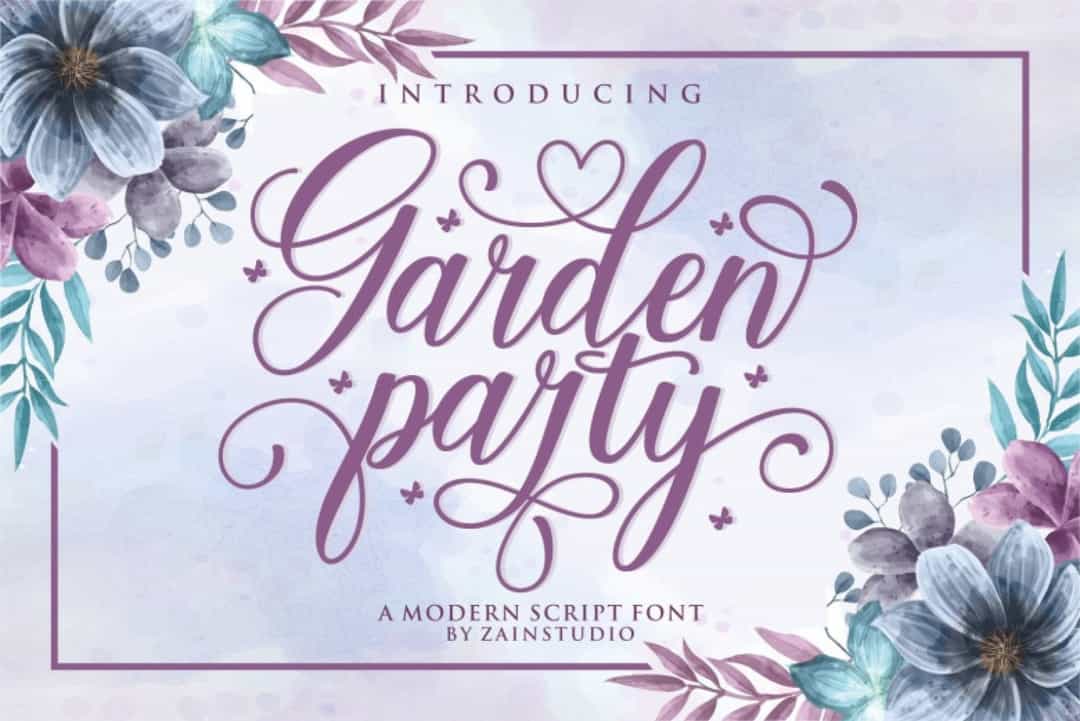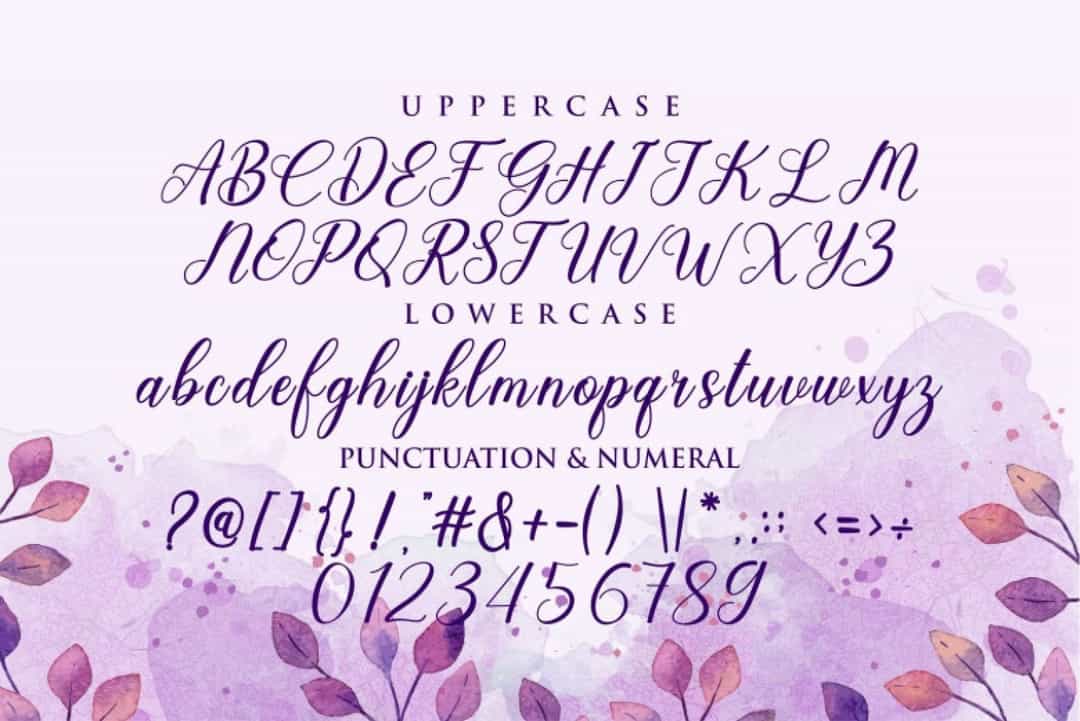
Garden Party is an elegant contemporary script font which exudes luxuriousness. The handwriting script makes Garden Party ideal for creating headlines, logotypes clothing wedding invitations packaging brand ads ads watermarks and more.